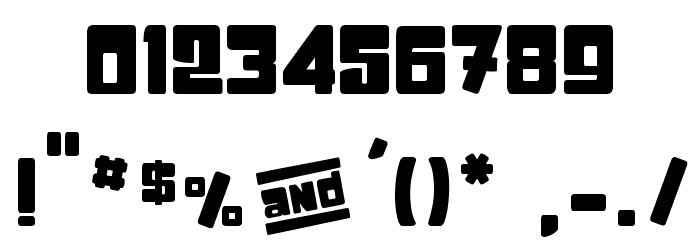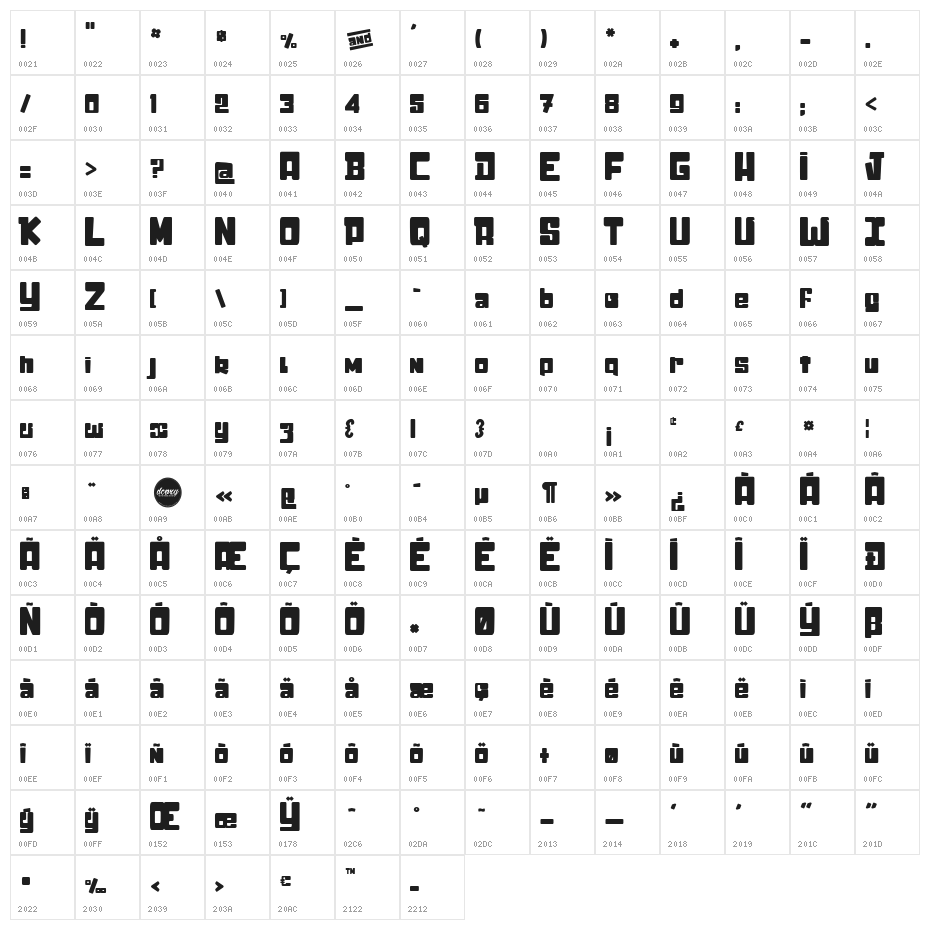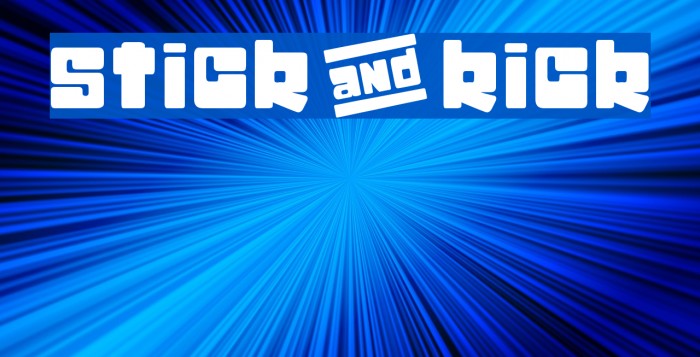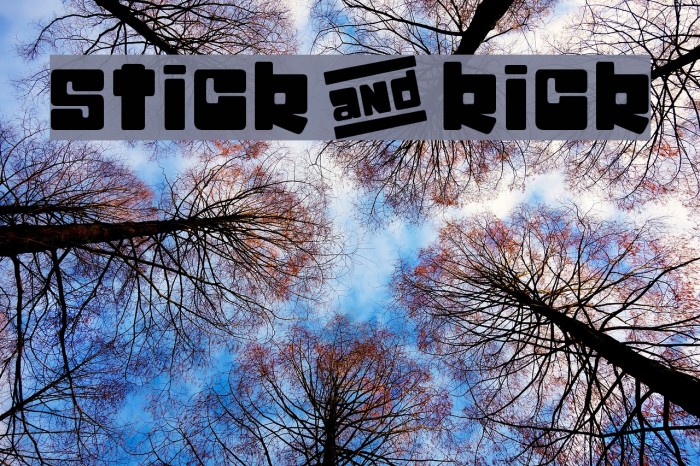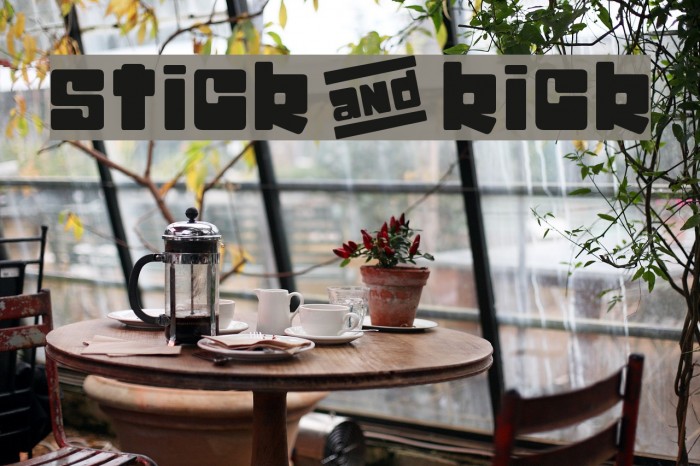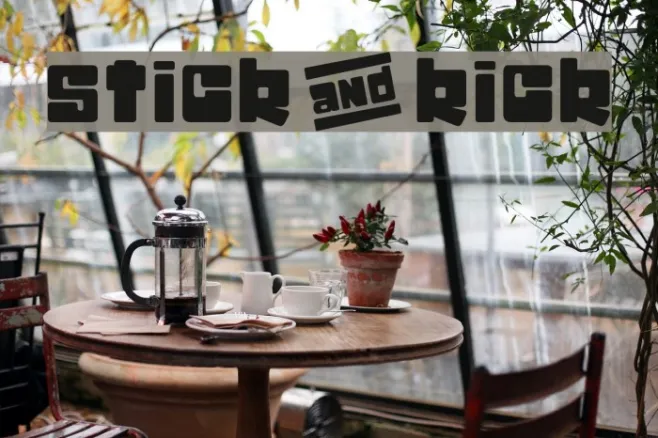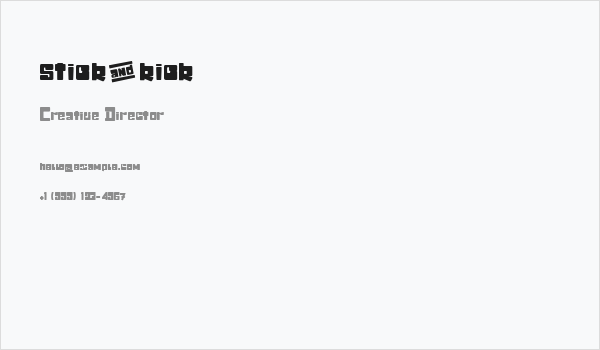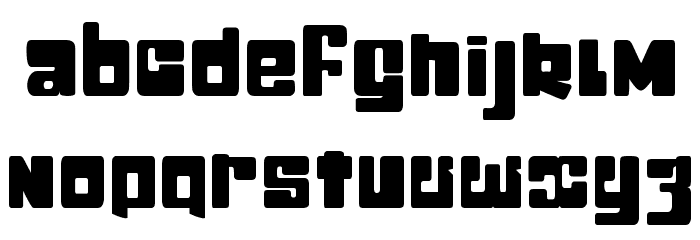
stick&kick Font
stick&kick Description
This font features a bold and blocky design with a strong geometric influence. The characters are uniformly thick, creating a robust and impactful appearance. The uppercase letters are particularly striking, with sharp angles and a consistent height that enhances readability. The lowercase letters maintain the same boldness, ensuring a cohesive look across different text sizes. Numbers and special characters are designed with the same attention to detail, making them stand out in any context. This font's unique style is both modern and slightly retro, offering versatility for various design needs.
| Proposed Projects | Ideal for posters, logos, branding, and headlines where a strong visual impact is desired. |